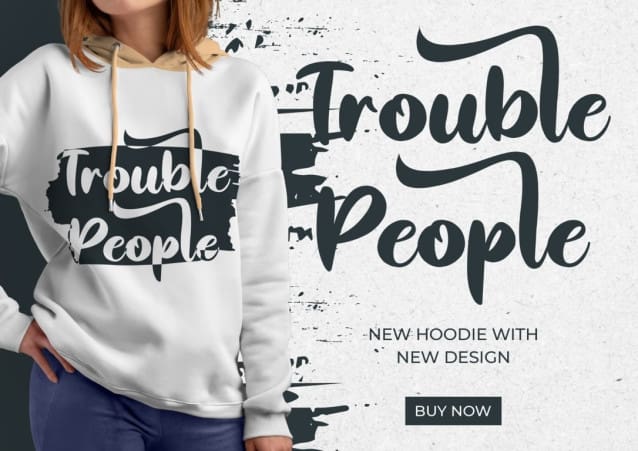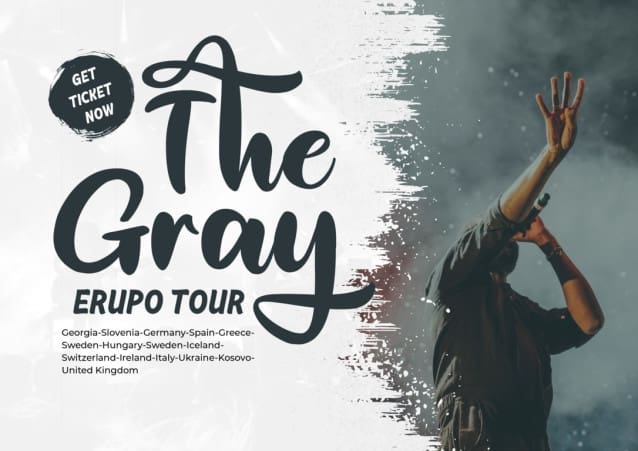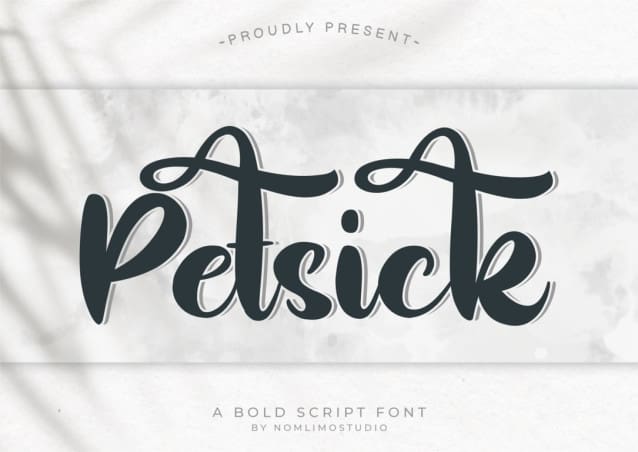
Petsick Script Font
Petsick Script Font, a bold and stylish script font that adds a touch of elegance to your design projects. Whether it’s posters, magazine covers, t-shirt designs, flyers, or logotypes, Petsick is the perfect choice. Let this versatile font elevate your designs and make a lasting impression.